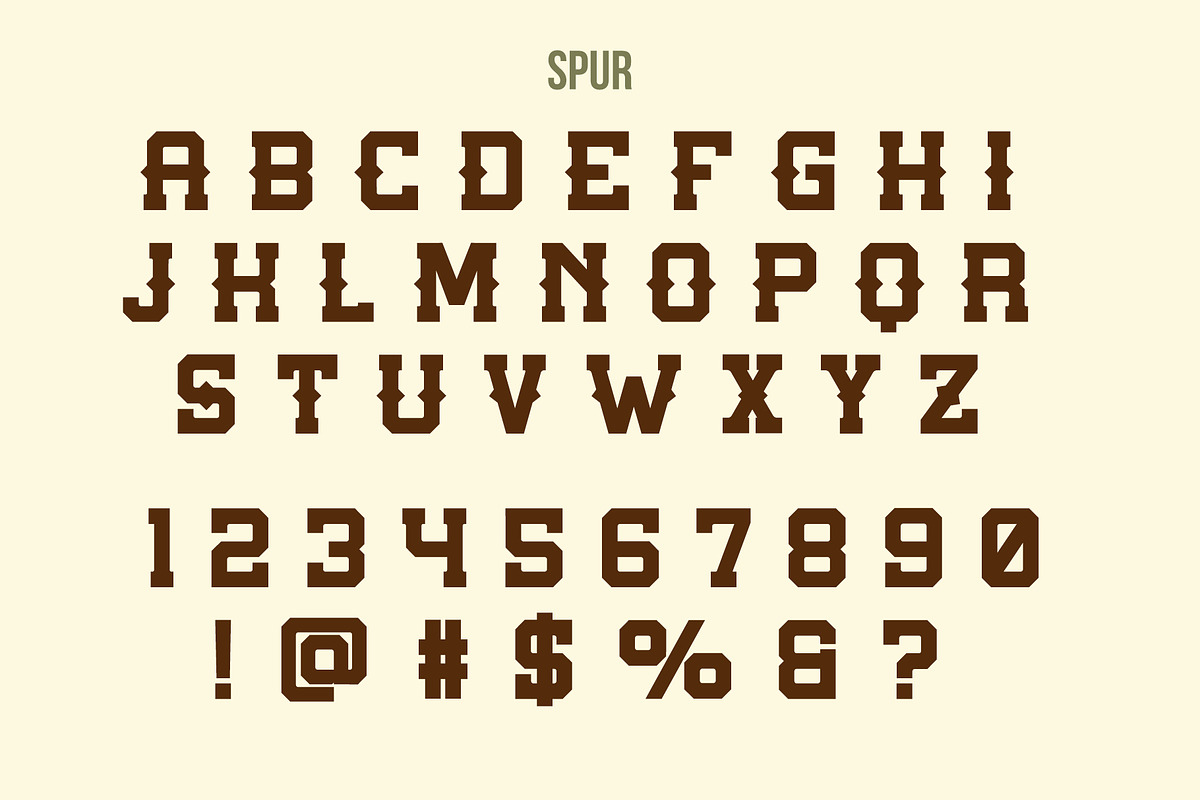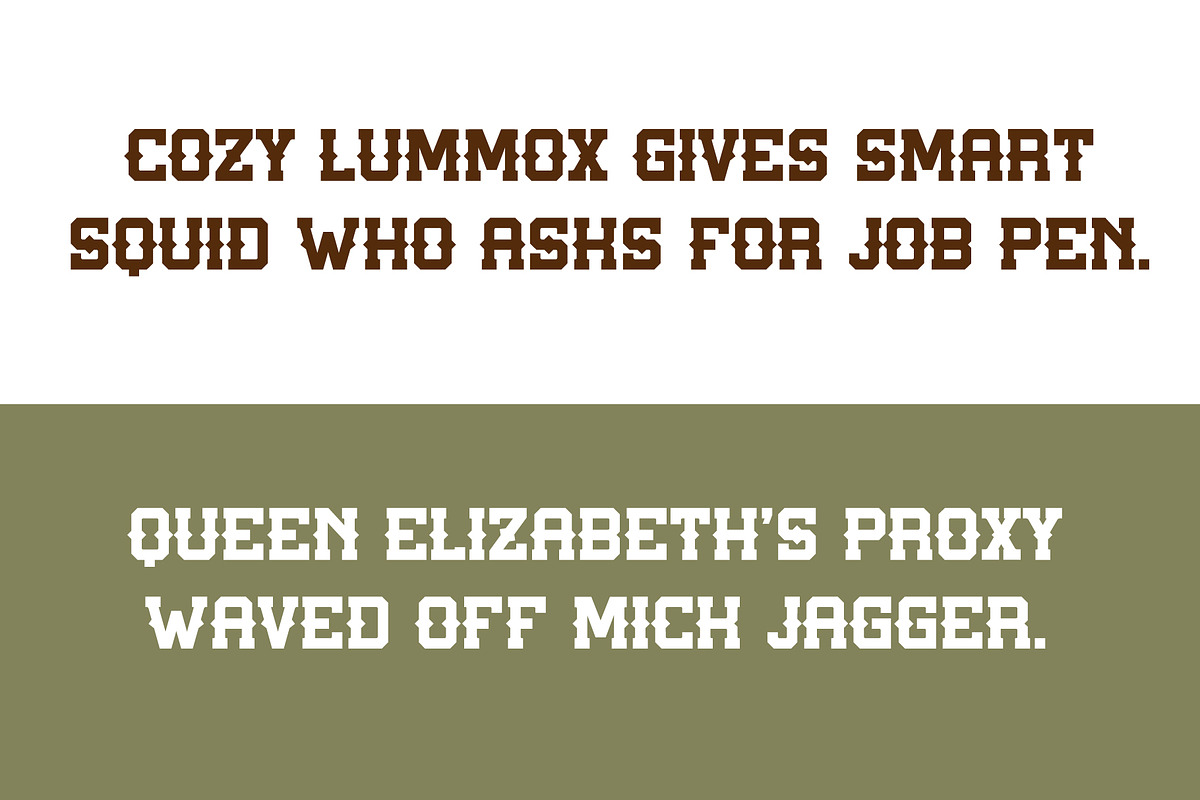
Texas Slab
Texas Slab is an all caps slab serif inspired by classic Texas typography, frontier signage, and old western print. Bold, confident letterforms meet subtle spur details for a rugged but clean display face that feels equally at home on a saloon sign, a modern brand mark, or a retro poster.
Designed for impact, Texas Slab features strong verticals, squared shoulders, and distinctive slab terminals that give it a timeless western character without leaning into novelty. The result is a typeface that feels sturdy, honest, and unmistakably Texan.
Texas Slab comes in two styles, Regular and Spur, giving you flexibility to dial in just the right amount of western character, from clean and bold to more decorative and expressive.
Perfect for logos, headlines, packaging, apparel, posters, branding, and editorial layouts that need a bold western voice with modern polish.
Big letters. Strong lines. Texas attitude.